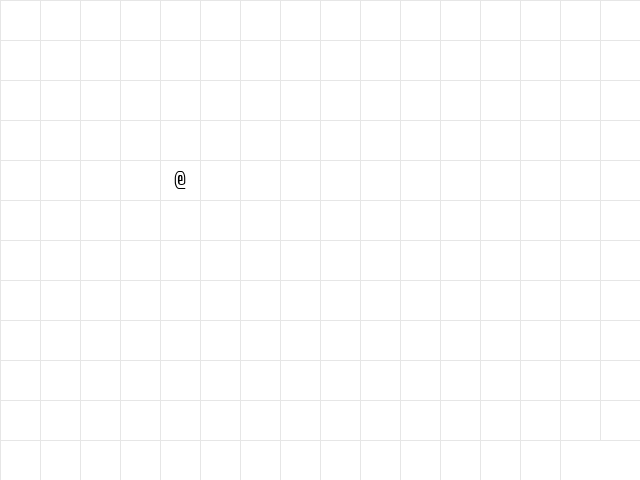
efont Regular
Design Context for efont Typeface
efont is a composed and adaptable typeface that performs quietly and consistently across a wide range of design contexts.